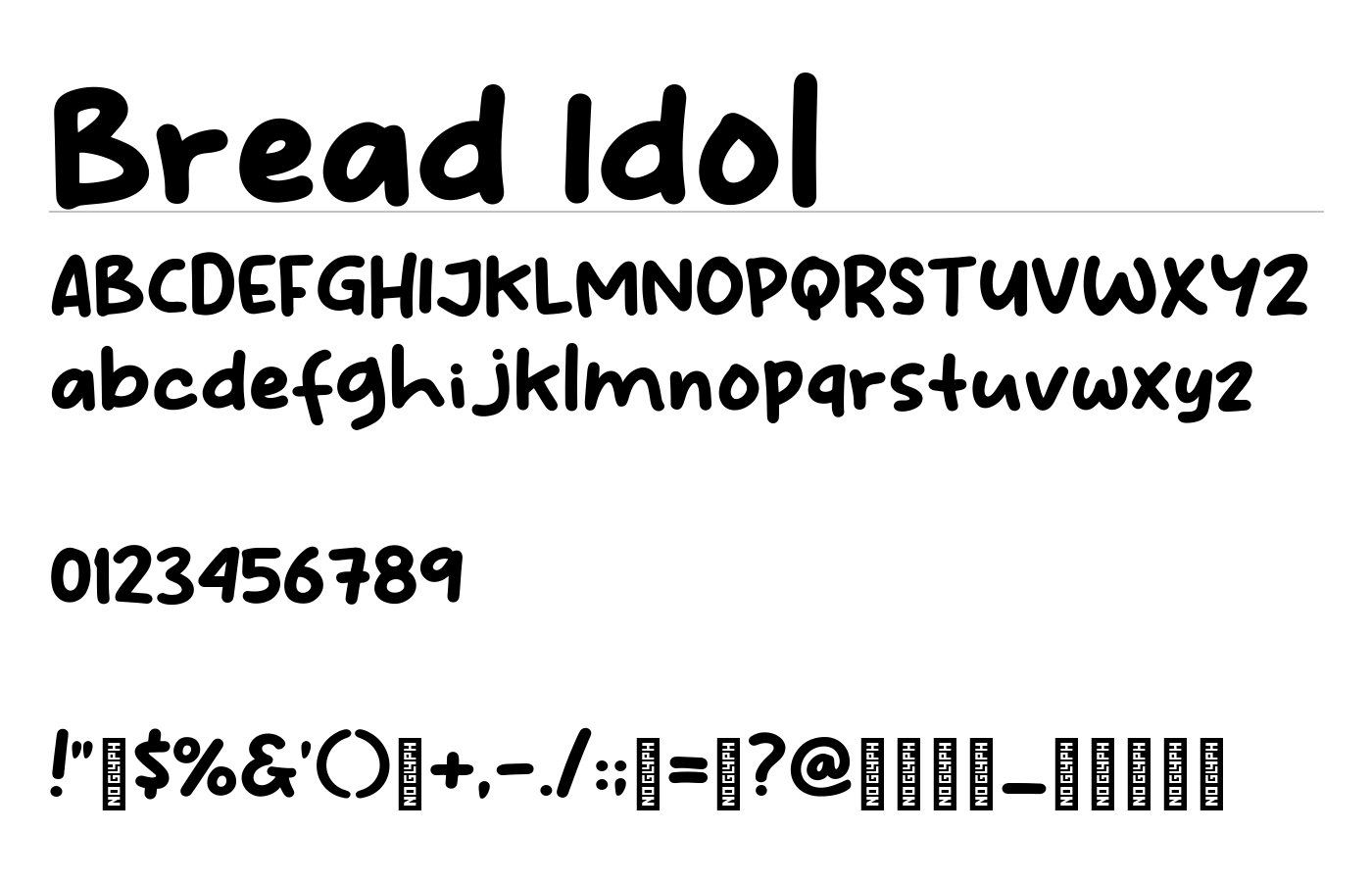
Bread Idol is a playful, casual sans serif font with a hand-drawn, friendly style. Its rounded and uneven strokes give it a warm, approachable feel that works well for informal designs, children's materials, or creative projects needing a personal touch. This font is ideal for logos, posters, and playful branding where a relaxed and fun tone is desired.
Bread Idol Font
About Bread Idol Font